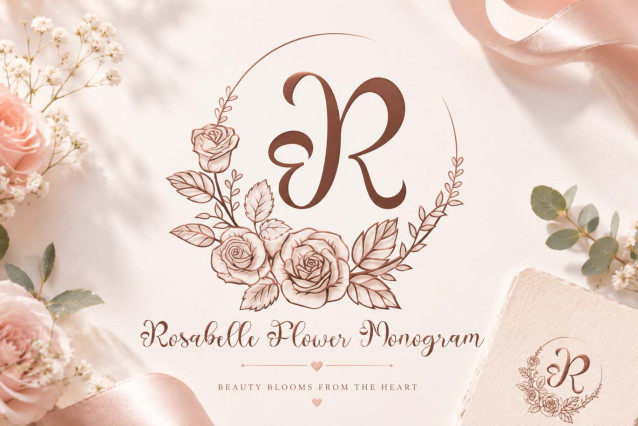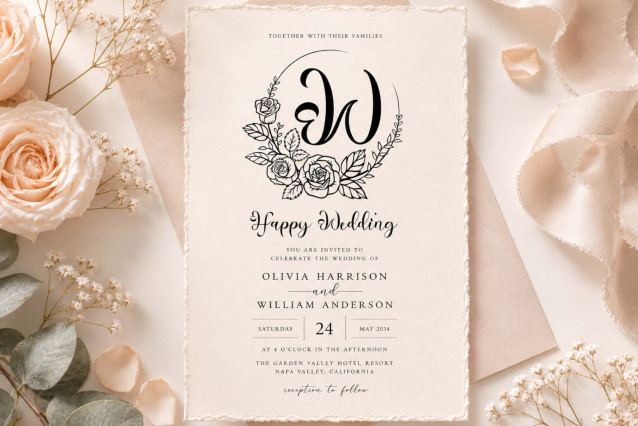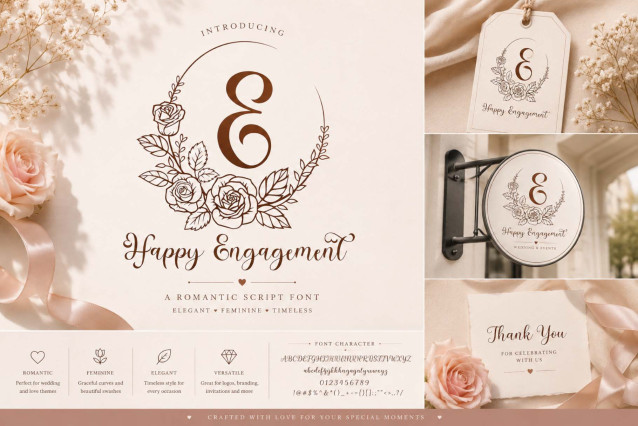
Rosabelle Flower Monogram Font
Rosabelle Flower Monogram is a graceful floral monogram font, featuring elegant hand-drawn rose illustrations and timeless decorative initials. Perfect for wedding invitations, logos, branding, stationery, packaging, and other romantic or luxurious design projects. Add a touch of sophistication and blooming beauty to any creation.